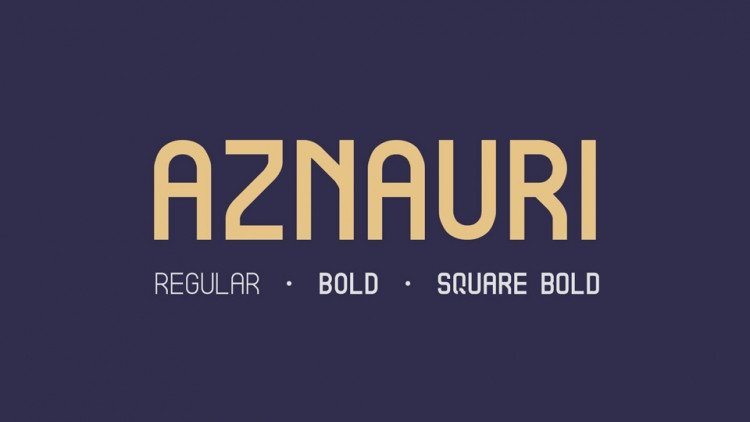
Aznauri Free Font
This is a bold display / headline typeface dedicated for big text, If you are looking for a display font then this is it! Introducing Aznauri Font. It’s perfect for crafting, photography, watermark, social media posts, advertisements, logos & branding, invitation, product designs, label, stationery, product packaging, special events etc.